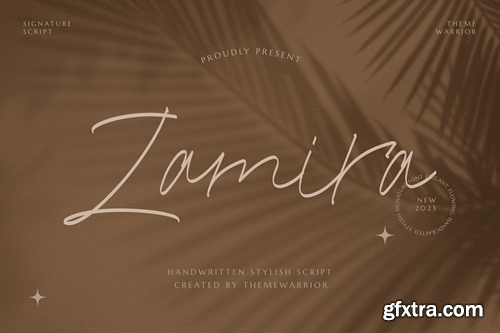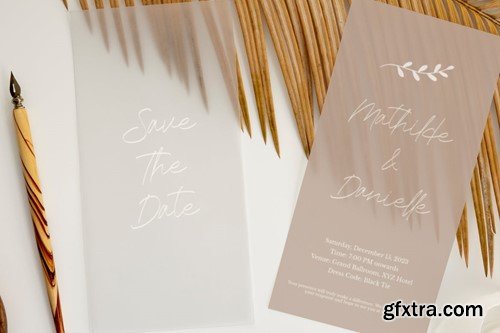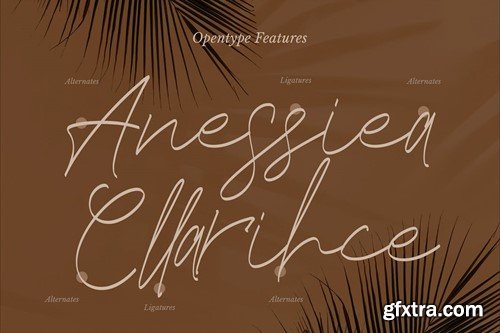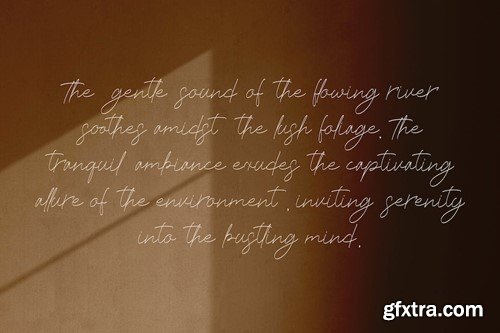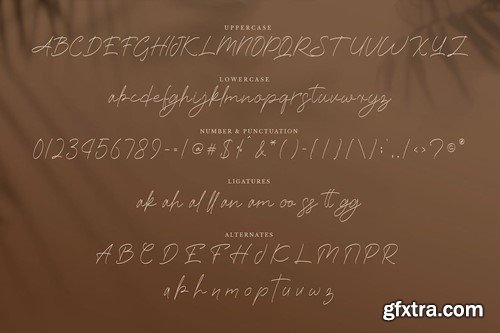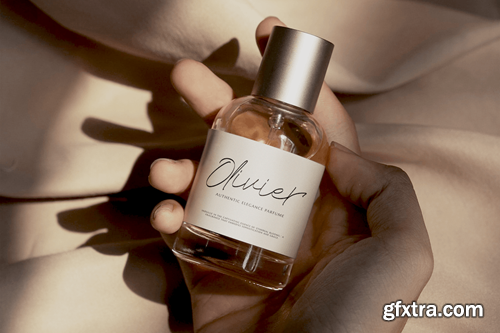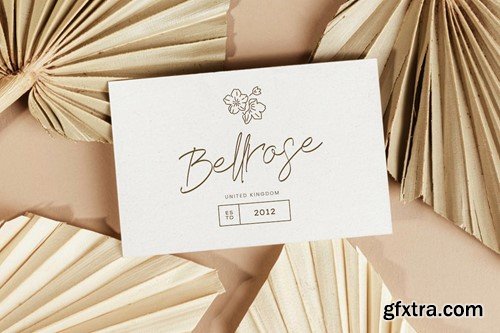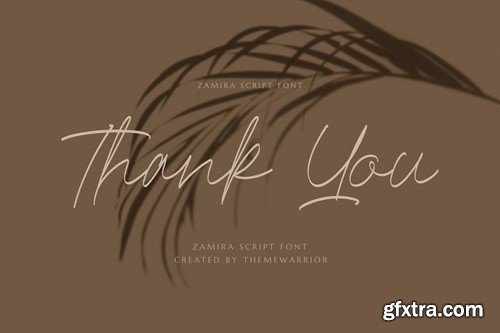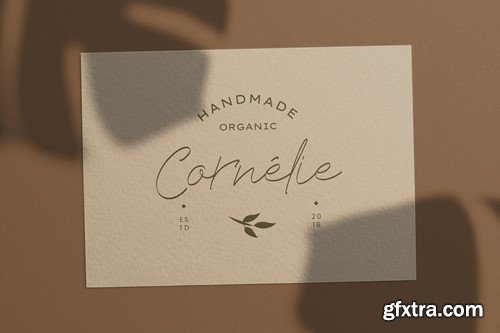
Zamira - Handwritten Font SKVAU7A
Zamira - Handwritten Font
Zamira is a handwritten font with a bit of modern and elegant style. The font is perfect to be use on greeting cards, wedding invitation & stationary, photographer logo, perfume and cosmetic brand logo and branding, product packaging, apparel design and more.
Features
• Uppercase & lowercase
• Numbers
• Punctuations
• Ligatures
• Alternates
• Multilingual support